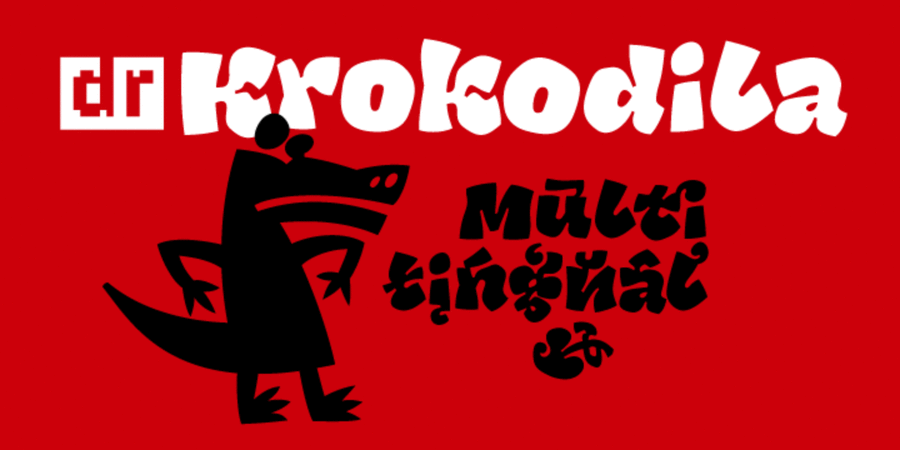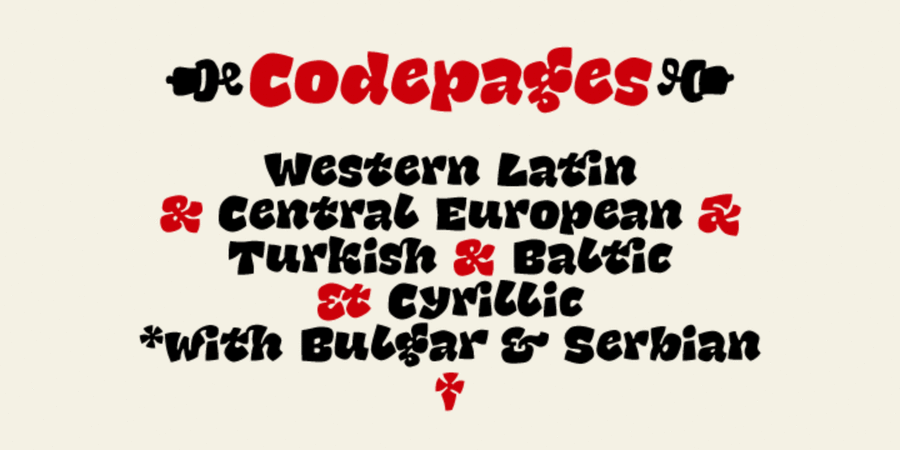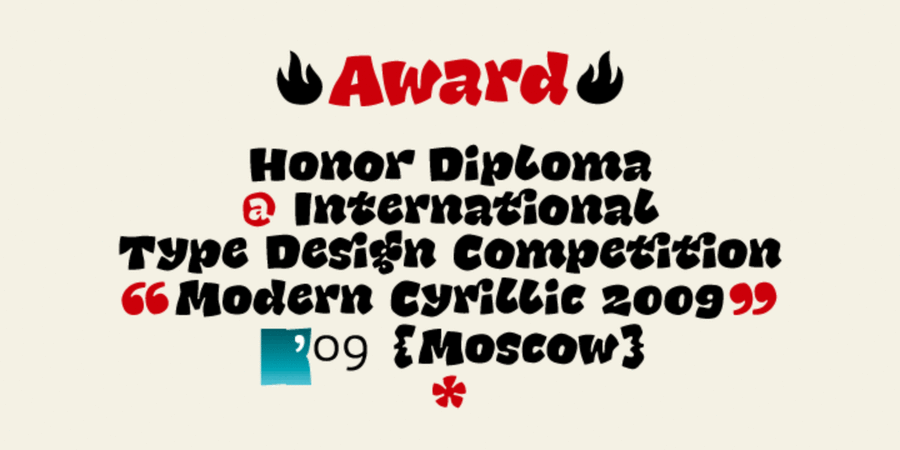
About DR KrokodilaThe Krokodila font was designed by Dmytro Rastvortsev in 2009 at the request of Mikko publishing house in Kharkiv. They needed a cool children's font with Cyrillic for the book cover. We always lacked such fonts, especially with Cyrillic.
cheerful, heavy, notable, splashy, close-fitting, loud, provocative, funny, leaping, slovenly, playful, mischievous, restless, agile, original, dynamic, ripe, delicious, chewed up, children, naive, cartoonish, toothy, animal, hot, southern, cool, wild, quarrelsome, madcap, alive, naughty, rude, distinctive, uncouth, uneven, idle, walking, spoiled, strong, voracious, bright, active, witty, summer, tropical, careless, strange